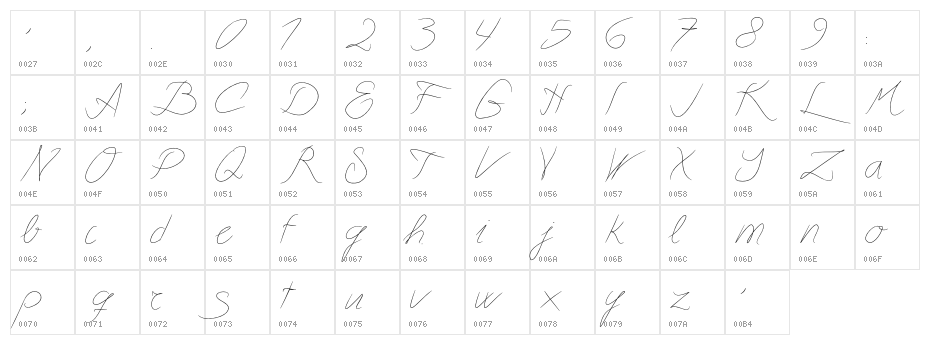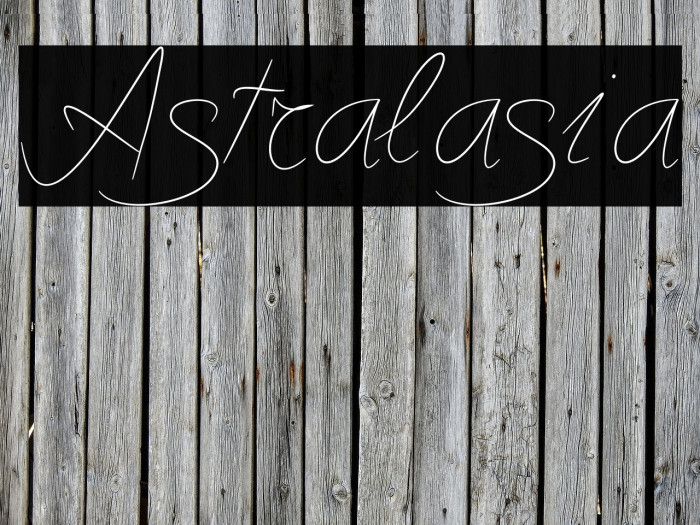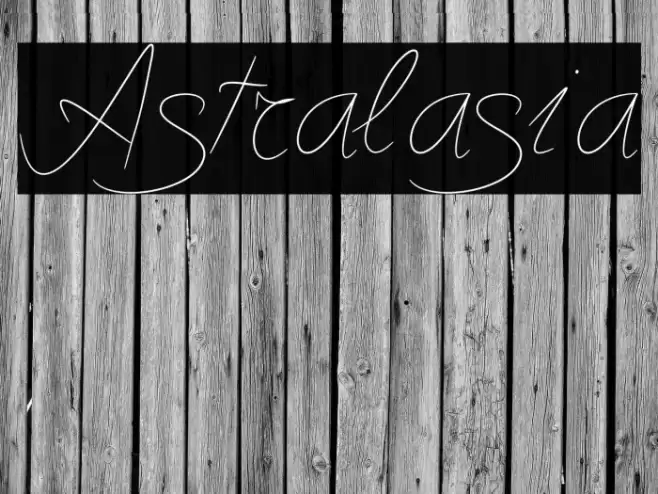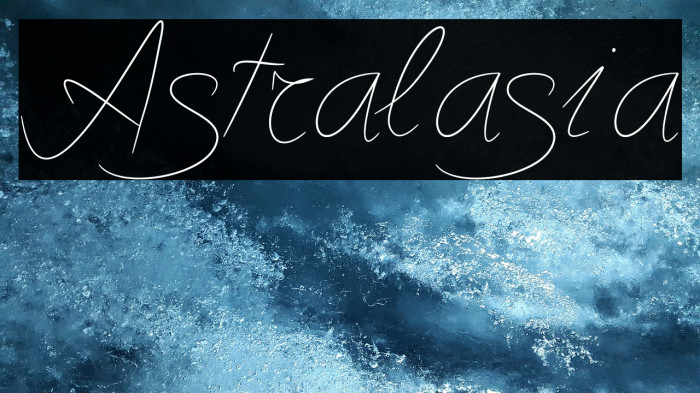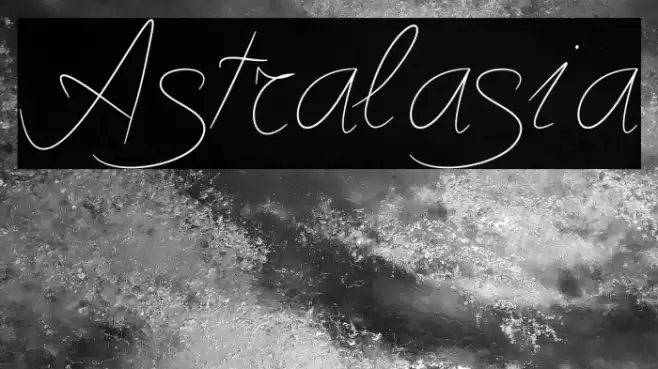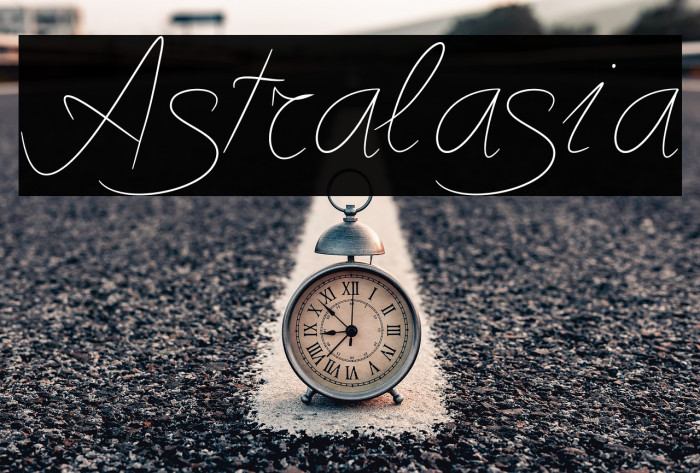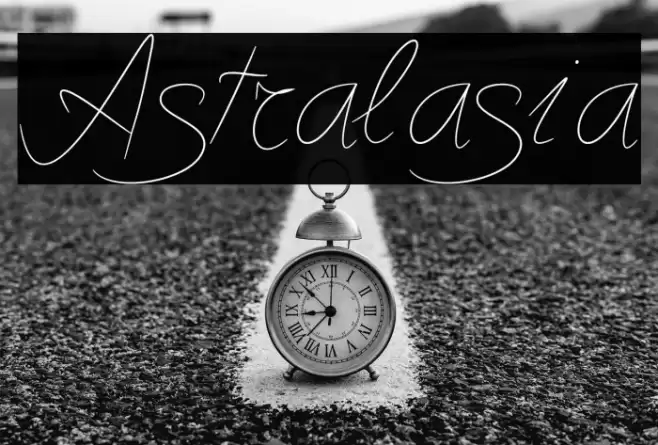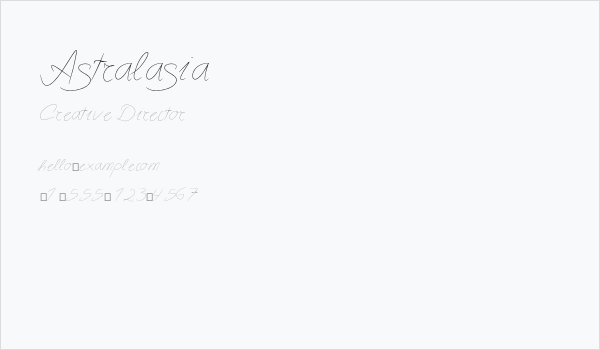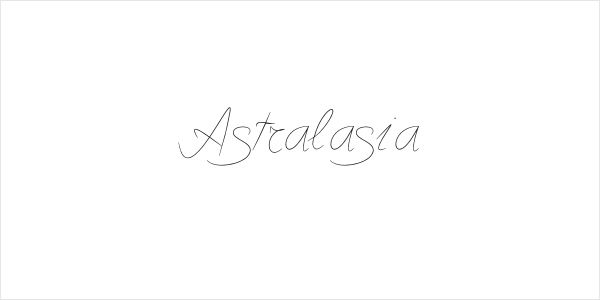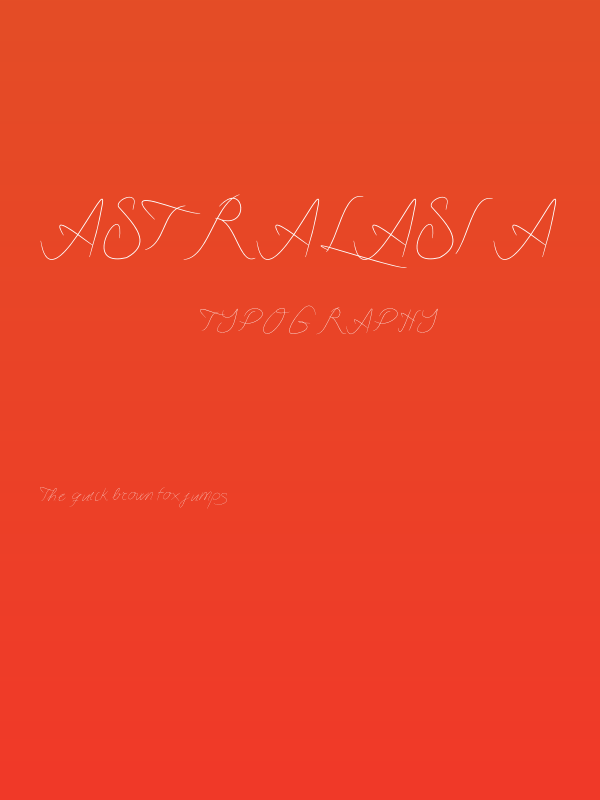
Astralasia Font
Astralasia Description
This font exhibits a delicate and flowing script style, characterized by its elegant and continuous strokes that mimic the fluidity of handwriting. The uppercase letters are slightly more ornate, with subtle flourishes that add a touch of sophistication. The lowercase letters maintain a consistent slant, enhancing the cursive aesthetic. The numerals are designed to complement the letterforms, maintaining the same graceful curves. This font is ideal for projects that require a personal touch, such as invitations or greeting cards, where a sense of elegance and intimacy is desired.
| Use Case | Invitations, Personal stationery, Elegant branding |
| Proposed Projects | Ideal for wedding invitations, personal stationery, and elegant branding projects. |